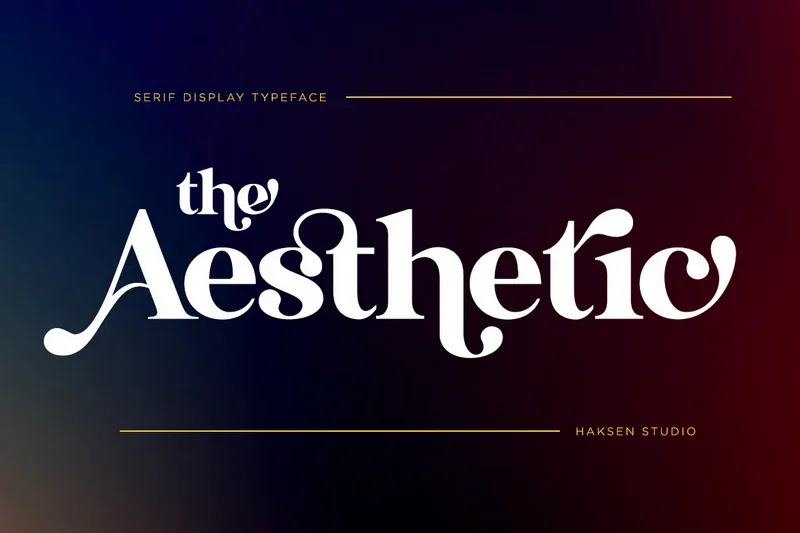
Modern Logo Font – Aesthetic Luxury Bold
The Aesthetic is a bold and elegant serif display font that merges classical sophistication with a touch of modern flair. Its distinct curves, high contrast strokes, and luxurious alternates make it a perfect choice for branding, editorial design, packaging, and upscale marketing visuals.
Features & Benefits :
Elegant Serif Style : Combines traditional serif structure with playful and artistic elements, ideal for making a statement in any design.
Stylistic Alternates: Multiple alternate glyphs for key characters, allowing you to create custom looks and add a unique personal touch to your text.
Beautiful Ligatures: Seamlessly connected letter combinations enhance readability while maintaining elegance.
Perfect for Display Use: Best suited for headlines, logos, posters, product packaging, book covers, magazine titles, social media, and more.